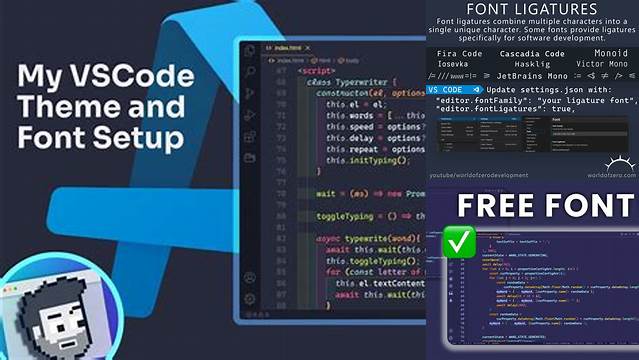
Best VSCode Fonts On Windows: A Developer's Guide
Finding the perfect font for your VSCode editor on Windows can drastically improve your coding experience. A well-chosen font can enhance readability, reduce eye strain, and even boost your productivity. Let's dive into the best fonts for VSCode on Windows, covering everything from installation to customization.
H2: Understanding Font Preferences for VSCode
Before we jump into specific font recommendations, it's crucial to understand what makes a font suitable for coding. Readability is key; you want a font that clearly distinguishes between characters, especially those that are often confused (like 'l', 'I', and '1', or '0' and 'O'). Monospace fonts are generally preferred because each character occupies the same horizontal space, ensuring consistent alignment and making code easier to scan. Consider character width and letter spacing, too. Some fonts appear cramped, while others offer more breathing room, directly impacting visual comfort during long coding sessions. You want to find something that’s easy on your eyes and allows you to differentiate between similar characters quickly. Font size also plays a significant role; what works well for one person might not work for another, so experimentation is important. Personal preference also weighs heavily. Do you prefer a clean, modern look or something more traditional? Thinking about these factors will help you narrow down the best VSCode font for your Windows setup.
H2: Top Monospace Fonts for VSCode on Windows
When it comes to coding, monospace fonts are the unsung heroes, providing the uniformity and clarity that make staring at code for hours bearable. Some of the top contenders include Fira Code, known for its programming ligatures that combine common character sequences into single, more readable symbols. JetBrains Mono is another popular choice, praised for its excellent readability and subtle design features that reduce eye strain. Cascadia Code, developed by Microsoft, is also a solid option, offering a modern look and feel that integrates well with Windows. Source Code Pro is a reliable, widely-used font that provides a clean and straightforward appearance. And let’s not forget about Consolas, a default Windows font that is surprisingly effective for coding, thanks to its clear and well-defined characters. Each of these fonts offers a unique blend of readability, aesthetics, and special features like ligatures, making them excellent choices for your VSCode editor on Windows. Exploring these options will get you closer to finding the perfect font that suits your coding style and preferences.
H2: Enabling Font Ligatures in VSCode
Font ligatures can make your code look cleaner and more readable by combining certain character sequences into single, visually appealing symbols. To enable font ligatures in VSCode, you first need to make sure you're using a font that supports them, such as Fira Code, JetBrains Mono, or Cascadia Code. Once you've chosen a suitable font, open VSCode's settings (File > Preferences > Settings or Ctrl + ,). Search for "font ligatures" to find the Editor: Font Ligatures setting. By default, this setting is usually disabled. To enable ligatures, simply enter true in the setting's value field. VSCode will then start rendering ligatures for supported character sequences, such as != becoming ≠, => becoming ⇒, and === becoming ≡. These ligatures can make your code easier to scan and understand, especially when dealing with complex expressions. If you don't see ligatures after enabling the setting, double-check that you've selected a font that supports them and that the font name is correctly entered in the Editor: Font Family setting. Enabling font ligatures is a simple yet effective way to enhance the visual clarity of your code and improve your overall coding experience.
H2: Customizing VSCode Font Settings for Different Languages
VSCode allows you to customize font settings for different programming languages, giving you the flexibility to optimize readability for each language's unique syntax and structure. To do this, you need to use VSCode's language-specific settings. Open VSCode's settings (File > Preferences > Settings or Ctrl + ,) and click on the "{} " icon to open the settings.json file. In this file, you can add language-specific settings within the [language] block. For example, to set a specific font for Python files, you would add a block like this:
"[python]": {
"editor.fontFamily": "Your Python Font",
"editor.fontSize": 14
}
Replace "Your Python Font" with the name of the font you want to use for Python files, and adjust the font size as needed. You can repeat this process for other languages, such as JavaScript, HTML, or CSS, using their respective language identifiers (e.g., [javascript], [html], [css]). This level of customization allows you to fine-tune your coding environment to suit the specific requirements of each language, improving readability and reducing eye strain. Remember to save the settings.json file after making your changes for them to take effect.
H2: Addressing Font Rendering Issues on Windows
Sometimes, you might encounter font rendering issues on Windows that can affect the appearance of your code in VSCode. These issues can range from blurry fonts to incorrect character rendering. One common cause is ClearType, a technology that smooths the edges of fonts to make them appear sharper. To adjust ClearType settings, search for "Adjust ClearType text" in the Windows search bar and follow the on-screen instructions to optimize font rendering for your display. Another potential solution is to adjust VSCode's rendering mode. Open VSCode's settings (File > Preferences > Settings or Ctrl + ,) and search for "editor rendering". You'll find the Editor: Font Ligatures setting. Experiment with different rendering modes, such as default, crispEdges, or subpixelAntialiasing, to see if any of them improve font rendering. Additionally, make sure your graphics drivers are up to date, as outdated drivers can sometimes cause font rendering problems. If you're still experiencing issues, try disabling hardware acceleration in VSCode by adding the --disable-gpu flag to the VSCode shortcut's target path. Addressing font rendering issues can significantly improve the visual clarity of your code and enhance your overall coding experience.
H3: Exploring Fira Code for VSCode on Windows
Fira Code has gained immense popularity among developers as a go-to font choice for VSCode on Windows. Its distinctive feature lies in its support for programming ligatures, which transform common character combinations into single, more readable symbols. This not only enhances the visual clarity of your code but also makes it easier to spot errors and understand complex expressions. The font is designed with coding in mind, featuring clear distinctions between similar characters like 'l', 'I', and '1', as well as '0' and 'O', reducing the chances of misreading your code. The installation process is straightforward, just like any other font on Windows. Simply download the font files, right-click, and select "Install". Once installed, you can select Fira Code in VSCode's settings by specifying it in the Editor: Font Family setting. Don't forget to enable font ligatures in the settings to take full advantage of its unique features. Fira Code strikes a balance between aesthetics and functionality, making it a valuable addition to any developer's toolkit. Whether you're a seasoned coder or just starting out, Fira Code can significantly improve your coding experience by making your code more readable and visually appealing.
H3: Diving into JetBrains Mono for VSCode on Windows
JetBrains Mono is another excellent monospace font option for VSCode on Windows, designed specifically for developers by JetBrains, the company behind popular IDEs like IntelliJ IDEA. This font is crafted with a focus on readability and reducing eye strain, making it ideal for long coding sessions. JetBrains Mono features a taller x-height and clear, distinct glyphs that make it easy to differentiate between characters. One of its standout features is its subtle design choices aimed at minimizing visual fatigue, such as slightly rounded corners and optimized letter shapes. Installing JetBrains Mono is a breeze; simply download the font files and install them on your Windows system. Then, select JetBrains Mono as your preferred font in VSCode's settings. While it doesn't have as many ligatures as Fira Code, its focus on readability and subtle design enhancements make it a strong contender. JetBrains Mono's clean and modern aesthetic can help you stay focused and productive, whether you're writing code, reviewing pull requests, or debugging complex issues. If you value readability and a comfortable coding experience, JetBrains Mono is definitely worth considering.
H3: Understanding Cascadia Code for VSCode on Windows
Cascadia Code, developed by Microsoft, is a modern monospace font that was designed to enhance the experience of command-line interfaces and code editors like VSCode. It includes programming ligatures and is the default font for the Windows Terminal. Cascadia Code is particularly well-suited for developers who spend a lot of time working with code and command-line tools. Its design emphasizes clarity and readability, making it easier to distinguish between characters and reducing eye strain. The font's ligatures transform common coding symbols into more visually appealing and easily recognizable glyphs, improving code comprehension. Installing Cascadia Code is simple: download the font files, install them on your Windows system, and then select Cascadia Code as your font of choice in VSCode's settings. To fully utilize its ligatures, ensure that you enable font ligatures in VSCode. Cascadia Code offers a fresh and modern aesthetic that complements the overall look and feel of VSCode. Whether you are a seasoned developer or a novice, Cascadia Code can provide a comfortable and efficient coding experience, making your code more visually accessible and understandable.
H3: Source Code Pro: A Reliable Choice for VSCode on Windows
Source Code Pro is a well-established and highly regarded monospace font created by Adobe, specifically tailored for coding environments. Its clean, simple design makes it an excellent choice for developers seeking a font that prioritizes readability and clarity. Source Code Pro features distinct character shapes and generous spacing, reducing the likelihood of misreading code. It is designed to be comfortable on the eyes, even during extended coding sessions. Installing Source Code Pro on Windows is a straightforward process: simply download the font files, install them, and then select Source Code Pro as your preferred font in VSCode settings. While it may lack the programming ligatures found in fonts like Fira Code and Cascadia Code, Source Code Pro's focus on simplicity and readability makes it a reliable option for developers who value a no-frills coding experience. The font's consistent and clean appearance helps maintain focus and reduces distractions. Whether you're working on complex projects or simple scripts, Source Code Pro provides a dependable and visually comfortable environment for your coding tasks.
H3: The Benefits of Consolas as a VSCode Font on Windows
Consolas, a font that comes pre-installed with Windows, is often overlooked but remains a surprisingly effective choice for coding in VSCode. Its clear and well-defined characters provide excellent readability, making it easy to distinguish between similar characters and reducing the chance of errors. While it may not have the advanced features like programming ligatures found in other fonts, Consolas' simplicity and familiarity can be a significant advantage. One of the main benefits of using Consolas is that it requires no additional installation, as it is already available on most Windows systems. This makes it a convenient option for developers who want a hassle-free font solution. To use Consolas in VSCode, simply select it as your preferred font in the editor settings. Its consistent and clean appearance provides a comfortable coding experience, especially for those who prefer a traditional and straightforward font. While there are many newer and more feature-rich fonts available, Consolas' reliability and ease of use make it a solid choice for developers who value practicality and simplicity.
H3: Understanding the Importance of Monospace Fonts for Coding
Monospace fonts are a cornerstone of coding environments, offering essential benefits that enhance readability and reduce errors. Unlike proportional fonts, where each character occupies a variable amount of horizontal space, monospace fonts allocate the same width to every character. This uniformity is crucial for maintaining consistent alignment in code, making it easier to visually scan and understand. The equal spacing between characters allows developers to quickly identify patterns, spot syntax errors, and follow the logical structure of the code. Monospace fonts also simplify tasks like aligning comments, creating tables, and visualizing data structures. In essence, they transform code into a more structured and predictable format, reducing ambiguity and improving overall comprehension. The choice of a monospace font is therefore a fundamental aspect of creating a comfortable and efficient coding environment. By ensuring that every character is given equal visual weight, monospace fonts empower developers to focus on the logic and functionality of their code, rather than struggling with inconsistent spacing and alignment.
H3: How to Choose the Right Font Size for VSCode on Windows
Selecting the optimal font size for VSCode on Windows is a crucial step in creating a comfortable and productive coding environment. The ideal font size depends on several factors, including your screen resolution, viewing distance, personal preferences, and the specific font you're using. A font size that is too small can cause eye strain and make it difficult to read code, while a font size that is too large can reduce the amount of code visible on the screen and hinder productivity. Start by experimenting with the default font size in VSCode and then gradually increase or decrease it until you find a size that feels comfortable and easy to read. Consider testing different font sizes with different types of code to see how they perform in various contexts. Pay attention to how the font looks with different levels of zoom and with different syntax highlighting themes. It's also helpful to solicit feedback from colleagues or friends who have experience with different font sizes. Ultimately, the right font size is a personal choice that depends on your individual needs and preferences. Take the time to experiment and find the font size that allows you to code comfortably and efficiently for extended periods.
H3: Adjusting Line Height for Improved Readability in VSCode
Adjusting the line height in VSCode is a simple yet effective way to improve code readability and reduce eye strain. Line height, also known as leading, refers to the vertical space between lines of text. Increasing the line height adds more white space between lines, making it easier to distinguish between them and reducing the feeling of crowdedness. This can be particularly beneficial when working with dense or complex code. The ideal line height depends on several factors, including the font size, the font's design, and your personal preferences. As a general guideline, a line height between 1.2 and 1.6 times the font size is often recommended. However, you should experiment with different values to find what works best for you. To adjust the line height in VSCode, open the settings and search for "line height". You can then enter a numerical value or use the slider to adjust the line height to your liking. Take the time to experiment with different line heights and observe how they affect your ability to read and comprehend code. A small adjustment to the line height can make a significant difference in your overall coding experience.
H3: The Impact of Font Weight on Code Readability in VSCode
Font weight, or the thickness of the font's strokes, can significantly impact code readability in VSCode. A font that is too light may appear faint and difficult to read, especially on screens with lower resolutions. Conversely, a font that is too bold can appear heavy and overwhelming, making it harder to distinguish between characters. The ideal font weight depends on the specific font you're using, your screen's characteristics, and your personal preferences. Many fonts offer a range of weights, such as regular, medium, bold, and semibold, allowing you to fine-tune the appearance of your code. Experiment with different font weights to see how they affect your ability to read and comprehend code. Pay attention to how the font looks with different syntax highlighting themes and with different levels of zoom. It's also helpful to consider the ambient lighting conditions in your workspace, as a darker environment may require a slightly bolder font weight. While VSCode doesn't directly offer a setting to adjust font weight, you can sometimes achieve a similar effect by using a different font family that has the desired weight. By carefully considering the font weight, you can optimize the readability of your code and reduce eye strain.
H3: Using VSCode Themes to Enhance Font Visibility
VSCode themes play a crucial role in enhancing font visibility by providing syntax highlighting and color contrast that make code easier to read and understand. A well-designed theme can highlight keywords, operators, variables, and other code elements, making them stand out and improving overall clarity. When choosing a VSCode theme, consider factors such as color contrast, the prominence of different code elements, and the overall aesthetic appeal. A theme with high contrast between the text and background can reduce eye strain, while a theme that effectively highlights important code elements can improve comprehension. Experiment with different themes to find one that suits your personal preferences and coding style. Pay attention to how the theme affects the appearance of your chosen font and how it performs in different lighting conditions. Some themes may work better with certain fonts than others, so it's important to test them together. VSCode offers a wide variety of themes to choose from, ranging from light and airy to dark and moody. You can also customize existing themes or create your own to perfectly match your needs. By carefully selecting a VSCode theme, you can significantly enhance font visibility and create a more comfortable and productive coding environment.
H3: Exploring Programming Ligatures in VSCode Fonts on Windows
Programming ligatures are special characters that combine multiple symbols into a single, more readable glyph. These ligatures can significantly improve code readability by transforming common character sequences, such as !=, =>, and ===, into visually distinct symbols. Fonts like Fira Code, JetBrains Mono, and Cascadia Code offer extensive support for programming ligatures, making them popular choices among developers. When using a font with ligatures in VSCode, you need to enable the Editor: Font Ligatures setting to take full advantage of this feature. Ligatures can make code easier to scan and understand, especially when dealing with complex expressions or unfamiliar syntax. By replacing multiple characters with a single symbol, ligatures reduce visual clutter and improve the overall clarity of the code. However, some developers may find ligatures distracting or prefer the traditional appearance of separate characters. Ultimately, the use of ligatures is a matter of personal preference. Experiment with different fonts and settings to see if ligatures enhance your coding experience. If you find them helpful, they can be a valuable tool for improving code readability and reducing errors.
H3: Fixing Common Font Issues in VSCode on Windows
Encountering font issues in VSCode on Windows can be frustrating, but most problems can be resolved with a few simple troubleshooting steps. Common issues include blurry fonts, incorrect character rendering, and fonts not appearing in the VSCode settings. Start by ensuring that your graphics drivers are up to date, as outdated drivers can sometimes cause font rendering problems. Next, adjust ClearType settings in Windows to optimize font smoothing for your display. You can access ClearType settings by searching for "Adjust ClearType text" in the Windows search bar. If you're still experiencing issues, try disabling hardware acceleration in VSCode by adding the --disable-gpu flag to the VSCode shortcut's target path. Additionally, check that the font you're using is properly installed and that the font name is correctly entered in the Editor: Font Family setting. If a font is not appearing in the VSCode settings, try restarting VSCode or even your computer. Finally, experiment with different rendering modes in VSCode by adjusting the Editor: Font Rendering setting. By systematically addressing these potential issues, you can resolve most font problems and ensure a clear and comfortable coding experience.
H3: Optimizing VSCode Font Settings for High-Resolution Displays
Coding on a high-resolution display can be a fantastic experience, but it also requires careful optimization of VSCode font settings to ensure optimal readability. High-resolution displays, such as 4K monitors, have a much higher pixel density than traditional displays, which can make fonts appear smaller and more difficult to read. To compensate for this, you may need to increase the font size in VSCode. Experiment with different font sizes until you find one that feels comfortable and easy to read on your display. Additionally, consider adjusting the line height to add more vertical space between lines, which can further improve readability. Another important setting to consider is the Editor: Font Smoothing option. Experiment with different font smoothing modes to see which one provides the clearest and most comfortable appearance on your display. Finally, make sure that your graphics drivers are up to date and that Windows is properly configured to handle high-resolution displays. By carefully optimizing these settings, you can take full advantage of your high-resolution display and enjoy a sharp and comfortable coding experience.
H3: How Font Choice Affects Coding Speed and Accuracy
The font you choose for your code editor can significantly impact your coding speed and accuracy. A well-chosen font can enhance readability, reduce eye strain, and improve overall focus, leading to increased productivity and fewer errors. A font that is easy to read allows you to quickly scan and understand code, reducing the time it takes to identify syntax errors and logical flaws. A font with clear distinctions between similar characters, such as 'l', 'I', and '1', can prevent misreading and reduce the likelihood of typos. A font that is comfortable on the eyes can minimize eye strain, allowing you to code for longer periods without fatigue. When selecting a font, consider factors such as readability, character clarity, spacing, and personal preferences. Experiment with different fonts and settings to find one that optimizes your coding speed and accuracy. While font choice is a personal preference, understanding the impact it can have on your coding performance can help you make a more informed decision. By choosing a font that enhances readability and reduces eye strain, you can create a more comfortable and productive coding environment.
H3: Best Practices for Maintaining Readable Code in VSCode on Windows
Maintaining readable code is crucial for collaboration, debugging, and long-term project maintainability. In VSCode on Windows, there are several best practices you can follow to ensure your code remains readable and easy to understand. Start by choosing a font that is specifically designed for coding, such as Fira Code, JetBrains Mono, or Cascadia Code. These fonts offer excellent readability and character clarity. Adjust the font size and line height to optimize readability for your screen and personal preferences. Use syntax highlighting to make code elements stand out and improve overall clarity. Follow consistent coding conventions and style guides to ensure uniformity and predictability. Use comments to explain complex logic and provide context for your code. Break down long lines of code into shorter, more manageable chunks. Use indentation and spacing to visually structure your code and make it easier to follow. Regularly review your code to identify and address any readability issues. By following these best practices, you can maintain readable code that is easy to understand, modify, and maintain, promoting collaboration and reducing the likelihood of errors.
H3: Troubleshooting Font Display Problems in VSCode on Windows
Font display problems in VSCode on Windows can be frustrating, but most issues can be resolved with a systematic approach to troubleshooting. Common problems include blurry fonts, missing characters, incorrect rendering, and fonts not appearing in the VSCode settings. Start by ensuring that the font is properly installed on your system. If the font is not installed, download it from a reputable source and install it using the Windows font installer. Next, check that the font name is correctly entered in the Editor: Font Family setting in VSCode. If the font name is misspelled or incorrect, VSCode will not be able to display the font. If you're experiencing blurry fonts, try adjusting ClearType settings in Windows to optimize font smoothing for your display. Additionally, make sure that your graphics drivers are up to date, as outdated drivers can sometimes cause font rendering problems. If you're still experiencing issues, try disabling hardware acceleration in VSCode by adding the --disable-gpu flag to the VSCode shortcut's target path. Finally, experiment with different rendering modes in VSCode by adjusting the Editor: Font Rendering setting. By systematically addressing these potential issues, you can resolve most font display problems and ensure a clear and comfortable coding experience.
H3: Understanding the Differences Between Font Types for VSCode
When choosing a font for VSCode, understanding the differences between various font types can greatly enhance your decision-making process. The two primary font types you'll encounter are monospace and proportional fonts. Monospace fonts, where each character occupies the same amount of horizontal space, are generally preferred for coding due to their ability to maintain consistent alignment and improve readability. Proportional fonts, on the other hand, vary the width of each character, making them less suitable for code where alignment is crucial. Within the realm of monospace fonts, you'll find variations in style, such as serif and sans-serif fonts. Serif fonts feature small decorative strokes at the ends of characters, while sans-serif fonts have cleaner, more minimalist designs. The choice between serif and sans-serif is largely a matter of personal preference, but many developers find sans-serif fonts easier to read on screen. Additionally, some fonts include special features like programming ligatures, which combine common character sequences into single symbols, further enhancing readability. By understanding these key differences between font types, you can make a more informed decision when selecting a font for VSCode, ultimately improving your coding experience.
H3: Best Fonts for Specific Programming Languages in VSCode
Choosing the right font for specific programming languages in VSCode can greatly enhance readability and reduce errors. While personal preference plays a significant role, certain fonts excel in rendering specific syntax and characters common to particular languages. For example, fonts like Fira Code and JetBrains Mono, with their support for programming ligatures, are particularly well-suited for languages like JavaScript, Python, and C++, where complex operators and expressions are frequently used. These ligatures can transform common character sequences into single, more readable symbols, reducing visual clutter and improving comprehension. For languages like HTML and CSS, where indentation and alignment are crucial, monospace fonts with clear character distinctions and consistent spacing are essential. Fonts like Source Code Pro and Consolas provide excellent readability and help maintain consistent alignment, making it easier to identify structural errors. Ultimately, the best font for a specific programming language depends on your personal preferences and the specific syntax and characters common to that language. Experiment with different fonts and settings to find the combination that optimizes your coding experience for each language you use.
H3: Improving Code Readability with Custom Font Settings in VSCode
Improving code readability with custom font settings in VSCode is a powerful way to personalize your coding environment and enhance your productivity. VSCode offers a wide range of font settings that allow you to fine-tune the appearance of your code to suit your individual preferences and needs. Start by selecting a font that is specifically designed for coding and offers excellent readability and character clarity. Fonts like Fira Code, JetBrains Mono, and Cascadia Code are popular choices among developers. Next, adjust the font size and line height to optimize readability for your screen and viewing distance. A font size that is too small can cause eye strain, while a font size that is too large can reduce the amount of code visible on the screen. Experiment with different font weights to see how they affect the appearance of your code. A font that is too light may appear faint, while a font that is too bold may appear heavy. Additionally, consider enabling font ligatures to transform common character sequences into single, more readable symbols. By customizing these font settings, you can create a coding environment that is comfortable, efficient, and tailored to your specific needs.
H3: Advanced Font Customization Techniques for VSCode on Windows
For developers seeking a truly personalized coding experience, VSCode offers advanced font customization techniques that go beyond the basic settings. One such technique is to use custom CSS to override VSCode's default styles and fine-tune the appearance of your fonts. This allows you to adjust properties like font weight, letter spacing, and text shadow to achieve a unique and visually appealing look. Another advanced technique is to use font patching tools to combine multiple fonts into a single font that incorporates the best features of each. This can be particularly useful for adding missing glyphs or ligatures to a font that you otherwise like. Additionally, you can use VSCode extensions to further customize your font settings and automate certain tasks. For example, there are extensions that allow you to quickly switch between different font configurations or to automatically adjust font settings based on the current file type. However, these advanced techniques require a certain level of technical expertise and may involve modifying VSCode's internal files, so proceed with caution and always back up your settings before making any changes. By mastering these advanced font customization techniques, you can create a coding environment that is truly unique and perfectly tailored to your individual preferences.
H3: The Future of Coding Fonts and Their Impact on VSCode
The future of coding fonts is bright, with ongoing innovations promising to further enhance the coding experience. One trend is the development of more sophisticated programming ligatures that can transform even more complex character sequences into visually distinct symbols, improving code readability and reducing visual clutter. Another trend is the creation of variable fonts, which allow for fine-grained control over font properties like weight, width, and slant, enabling developers to create highly customized and optimized font styles. Additionally, there is increasing emphasis on accessibility, with new fonts being designed to be more readable for developers with visual impairments or other disabilities. These advancements will have a significant impact on VSCode, empowering developers to create coding environments that are more comfortable, efficient, and personalized than ever before. As coding fonts continue to evolve, we can expect to see even greater integration with code editors like VSCode, with new features and settings that allow developers to take full advantage of the latest innovations. The future of coding fonts is about more than just aesthetics; it's about creating tools that empower developers to write better code, faster, and with less effort.
H3: Choosing Fonts for Accessibility in VSCode on Windows
When selecting fonts for VSCode on Windows, it's crucial to consider accessibility to ensure that the coding environment is usable for everyone, including individuals with visual impairments or other disabilities. Choose fonts designed with accessibility in mind, offering clear character distinctions, generous spacing, and optimized rendering for different screen resolutions. Consider fonts with larger x-heights, which make lowercase letters more prominent and easier to read. Provide options for adjusting font size, line height, and color contrast to accommodate individual preferences and needs. Use syntax highlighting to make code elements stand out and improve overall clarity. Avoid using overly stylized or decorative fonts that can be difficult to read. Test your font choices with users who have visual impairments to gather feedback and identify any potential issues. Consider using assistive technologies, such as screen readers or screen magnifiers, to further enhance accessibility. By prioritizing accessibility when choosing fonts for VSCode, you can create a coding environment that is inclusive and usable for all developers.